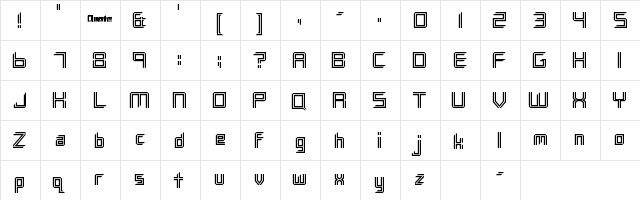
DXS Quote Regular
Design Context for DXS Quote Typeface
DXS Quote is a composed and adaptable typeface that performs quietly and consistently across a wide range of design contexts.